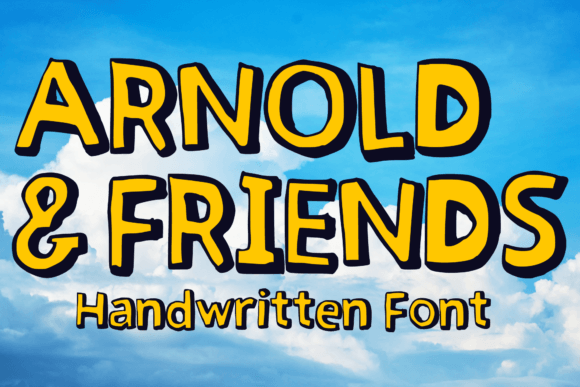
Arnold & Friends Font: The Ultimate 3D Retro Cartoon Display Font for Your Design Projects
Are you looking for a font that can add a touch of nostalgia to your design projects? Do you want to create something that screams ’90s theme? Look no further than the Arnold & Friends font! This fun 3D retro cartoon display font is perfect for designers who want to elevate their projects to the highest level. In this article, we’ll dive into the features and benefits of the Arnold & Friends font, and explore how you can use it to create amazing designs.
What is Arnold & Friends Font?
Arnold & Friends is a 3D retro cartoon display font that is inspired by the classic cartoons of the ’90s. The font features bold, chunky letters with a 3D effect that gives it a fun and playful look. The font is designed to be versatile and can be used for a wide range of design projects, from stickers and t-shirt designs to logo designs, magazine covers, and more.
Key Features of Arnold & Friends Font
- 3D Retro Cartoon Display Font: The font features a unique 3D effect that gives it a retro cartoon look.
- Fun and Playful: The font is designed to be fun and playful, making it perfect for designs that require a lighthearted touch.
- Versatile: The font can be used for a wide range of design projects, from stickers and t-shirt designs to logo designs and magazine covers.
Benefits of Using Arnold & Friends Font
So, why should you use the Arnold & Friends font for your design projects? Here are just a few benefits:
Elevate Your Designs
- Add a Touch of Nostalgia: The Arnold & Friends font is perfect for designers who want to create designs that scream ’90s theme.
- Stand Out from the Crowd: The font’s unique 3D effect and retro cartoon look make it a standout from other fonts.
- Increase Engagement: The font’s fun and playful look can help increase engagement and make your designs more memorable.
Design Ideas Using Arnold & Friends Font
The Arnold & Friends font is versatile and can be used for a wide range of design projects. Here are some design ideas to get you started:
Design Ideas
- Stickers: Use the Arnold & Friends font to create fun and colorful stickers that are perfect for laptops, water bottles, and more.
- T-Shirt Designs: Create amazing t-shirt designs that feature the Arnold & Friends font.
- Logo Designs: Use the font to create unique and memorable logo designs for your clients.
- Magazine or Book Covers: Use the font to create eye-catching magazine or book covers that feature a ’90s theme.
- Comics and Cartoon Drawings: The font is perfect for comics and cartoon drawings that require a fun and playful look.
The Arnold & Friends font is a fun and versatile 3D retro cartoon display font that is perfect for designers who want to add a touch of nostalgia to their design projects. With its unique 3D effect and retro cartoon look, the font is sure to elevate your designs to the highest level. Whether you’re creating stickers, t-shirt designs, logo designs, or magazine covers, the Arnold & Friends font is a great choice.
Final Thoughts
The Arnold & Friends font is a great addition to any designer’s font library. Its versatility and unique look make it perfect for a wide range of design projects. So, why not give it a try and see how it can elevate your designs?